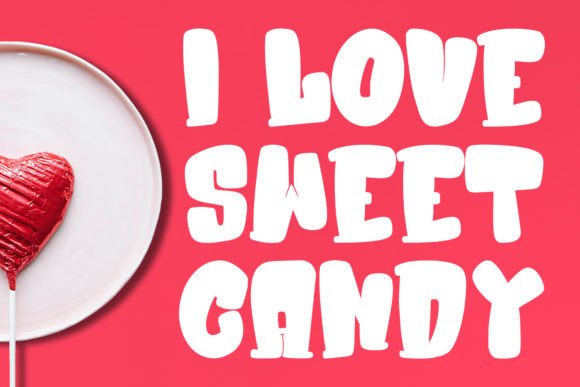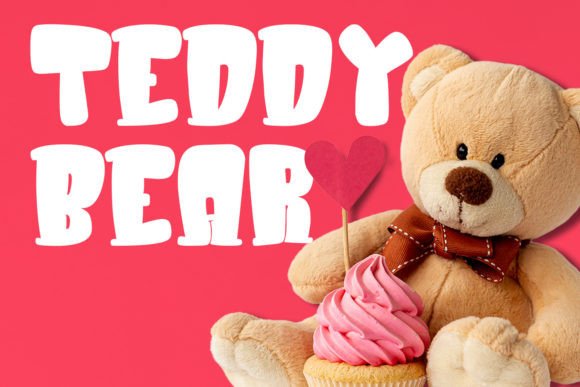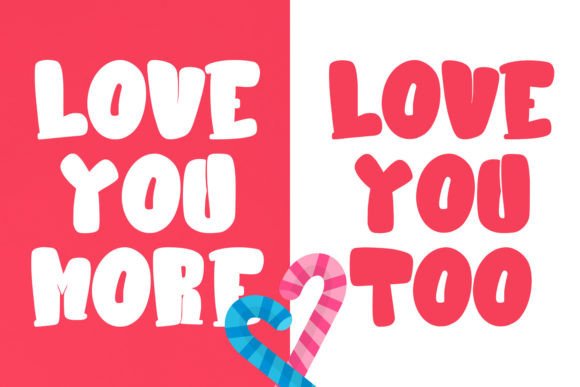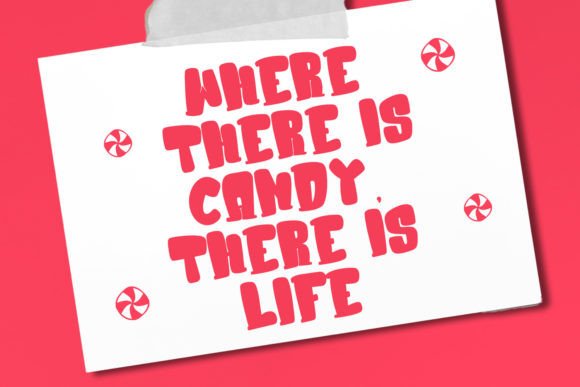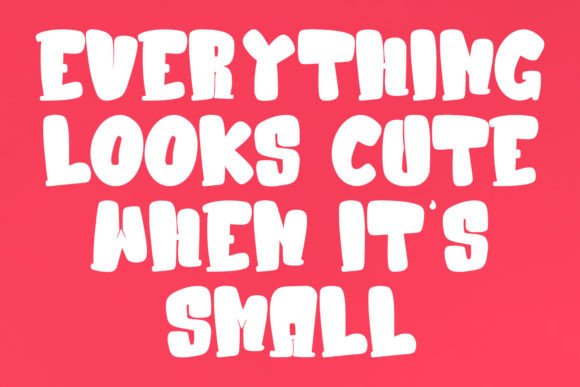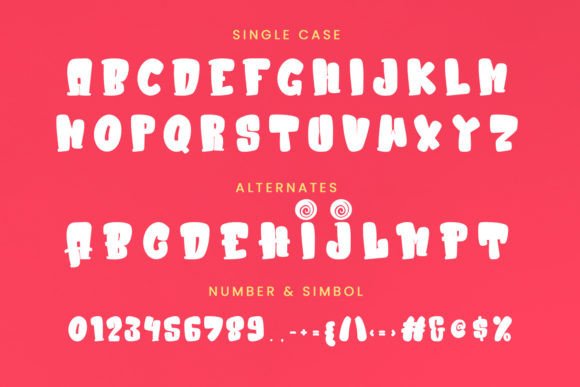
Introducing Bigs Candyer: The Ultimate Display Font for Creative Masterpieces
Bigs Candyer is an incredibly unique display font that has been masterfully designed to become a true favorite among designers and crafters. With its exceptional style and versatility, this font has the potential to bring each of your creative ideas to the highest level. In this article, we’ll dive into the world of Bigs Candyer, exploring its features, benefits, and uses, and discover why it’s a must-have for any creative project.
The Story Behind Bigs Candyer
Bigs Candyer is a carefully crafted display font that boasts a distinctive and eye-catching appearance. Its design is the result of a meticulous process, where every detail, from the curves to the lines, has been thoughtfully considered to create a truly unique visual experience. This font is perfect for those who want to add a touch of personality and flair to their designs, whether it’s for a logo, a headline, or a creative project.
Key Features of Bigs Candyer
- Unique and eye-catching design: Bigs Candyer’s distinctive style sets it apart from other fonts, making it perfect for designers who want to create something truly memorable.
- Highly versatile: This font can be used for a wide range of creative projects, from logos and branding to posters, flyers, and more.
- Easy to read: Despite its unique design, Bigs Candyer remains highly legible, making it perfect for use in headlines, titles, and other display text.
- Scalable: This font is designed to look great at any size, from small captions to large billboards.
Benefits of Using Bigs Candyer
So, why choose Bigs Candyer for your next creative project? Here are just a few benefits of using this incredible display font:
- Add a touch of personality: Bigs Candyer’s unique design allows you to add a touch of personality and flair to your designs, setting them apart from the crowd.
- Stand out from the competition: With Bigs Candyer, you can create designs that are truly memorable and eye-catching, helping you to stand out in a crowded market.
- Enhance your brand: This font can be used to create a consistent visual identity for your brand, helping to build recognition and establish your brand’s personality.
Using Bigs Candyer in Your Designs
Bigs Candyer is an incredibly versatile font that can be used in a wide range of creative projects. Here are a few ideas to get you started:
- Logos and branding: Use Bigs Candyer to create a unique and memorable logo that sets your brand apart.
- Posters and flyers: Add a touch of personality to your posters and flyers with Bigs Candyer’s eye-catching design.
- Social media graphics: Use Bigs Candyer to create social media graphics that stand out from the crowd and grab attention.
Tips and Tricks for Getting the Most Out of Bigs Candyer
To get the most out of Bigs Candyer, here are a few tips and tricks to keep in mind:
- Experiment with different colors: Bigs Candyer looks great in a wide range of colors, so don’t be afraid to experiment and find the perfect hue for your design.
- Play with font sizes: This font is designed to look great at any size, so try using it in different font sizes to add visual interest to your design.
- Combine with other fonts: Bigs Candyer can be paired with a wide range of other fonts to create a unique and visually appealing design.
Bigs Candyer is an incredibly unique and versatile display font that has the potential to bring each of your creative ideas to the highest level. With its eye-catching design, high legibility, and scalability, this font is perfect for designers and crafters who want to add a touch of personality and flair to their designs. Whether you’re creating a logo, a poster, or a social media graphic, Bigs Candyer is a must-have font that is sure to impress.